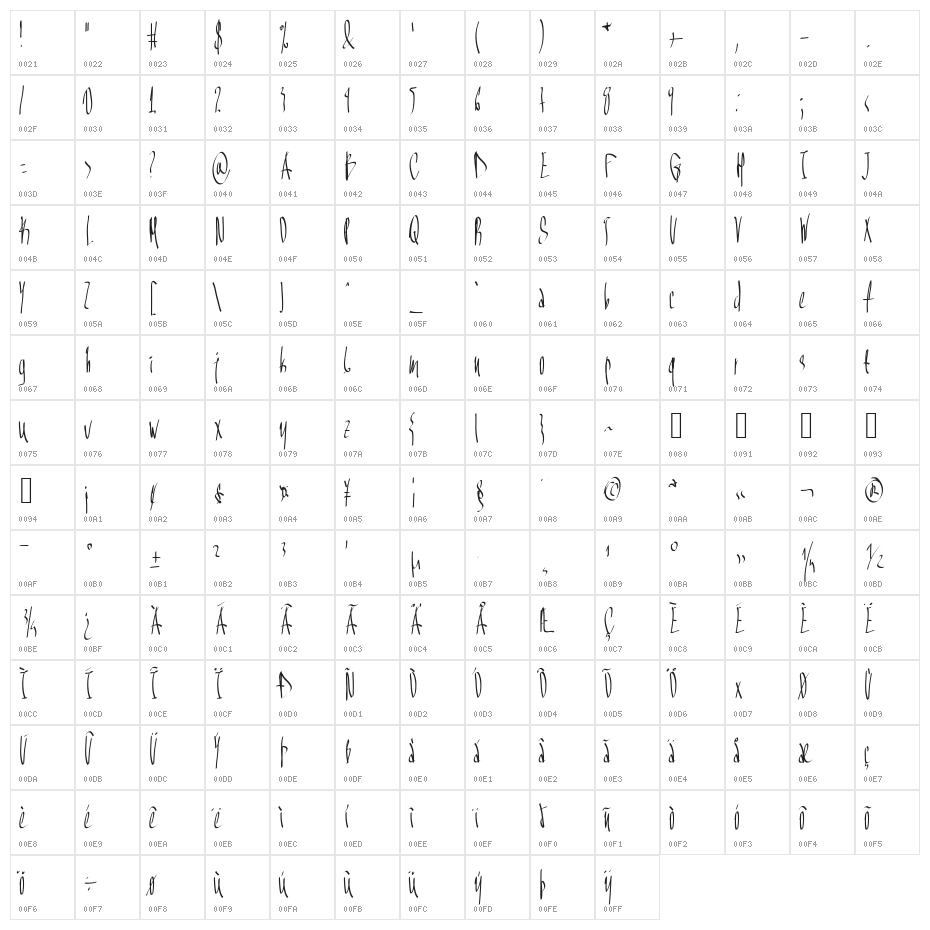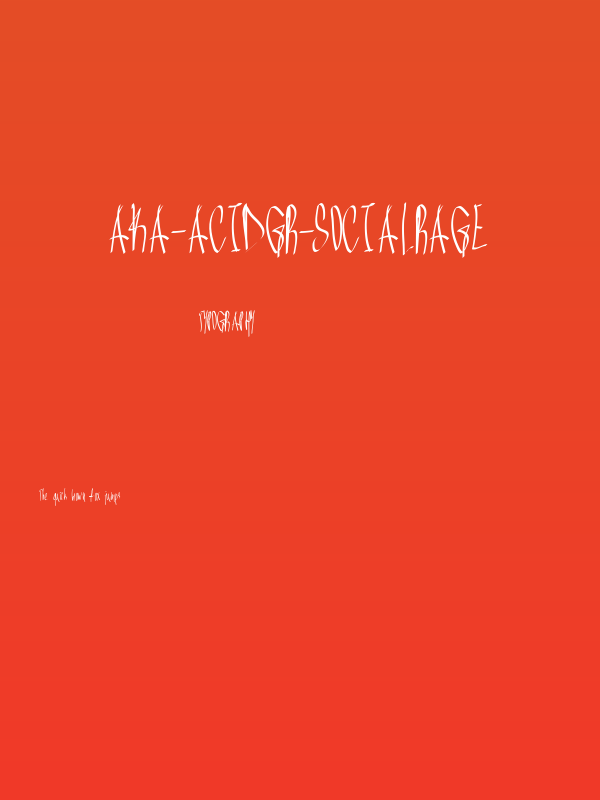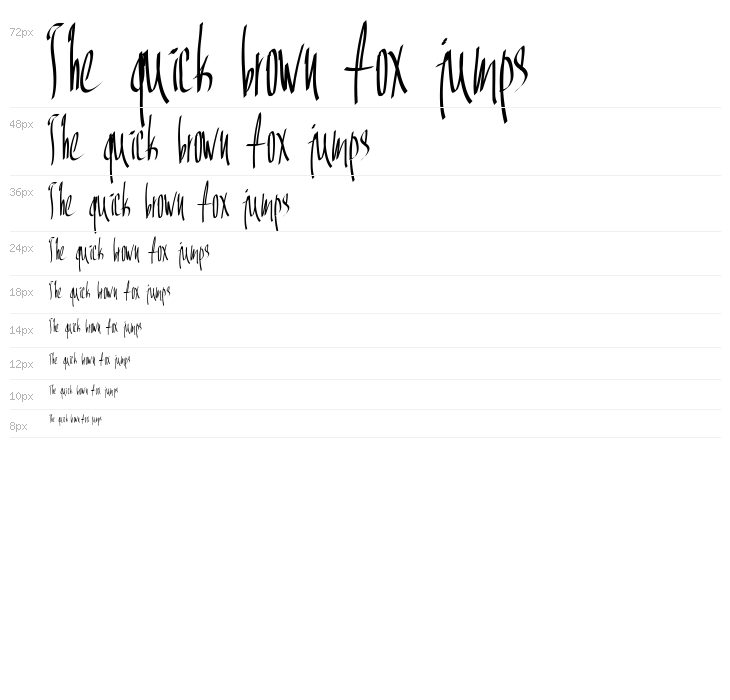
Aka-AcidGR-SocialRage Font
Aka-AcidGR-SocialRage Description
This font exhibits a dynamic and expressive style, characterized by its tall, narrow letterforms and sharp, angular strokes. The uppercase letters are particularly elongated, giving a sense of height and drama. The lowercase letters maintain a consistent style, with a slightly more relaxed form, yet still retaining the overall edgy and energetic feel. The numerals are similarly styled, with a unique flair that matches the alphabetic characters. Special characters are creatively integrated, adding to the font's distinctive personality. The overall impression is one of boldness and individuality, making it ideal for projects that require a strong visual impact.
| Proposed Projects | Ideal for album covers, posters, and branding projects that require a bold, artistic touch. |